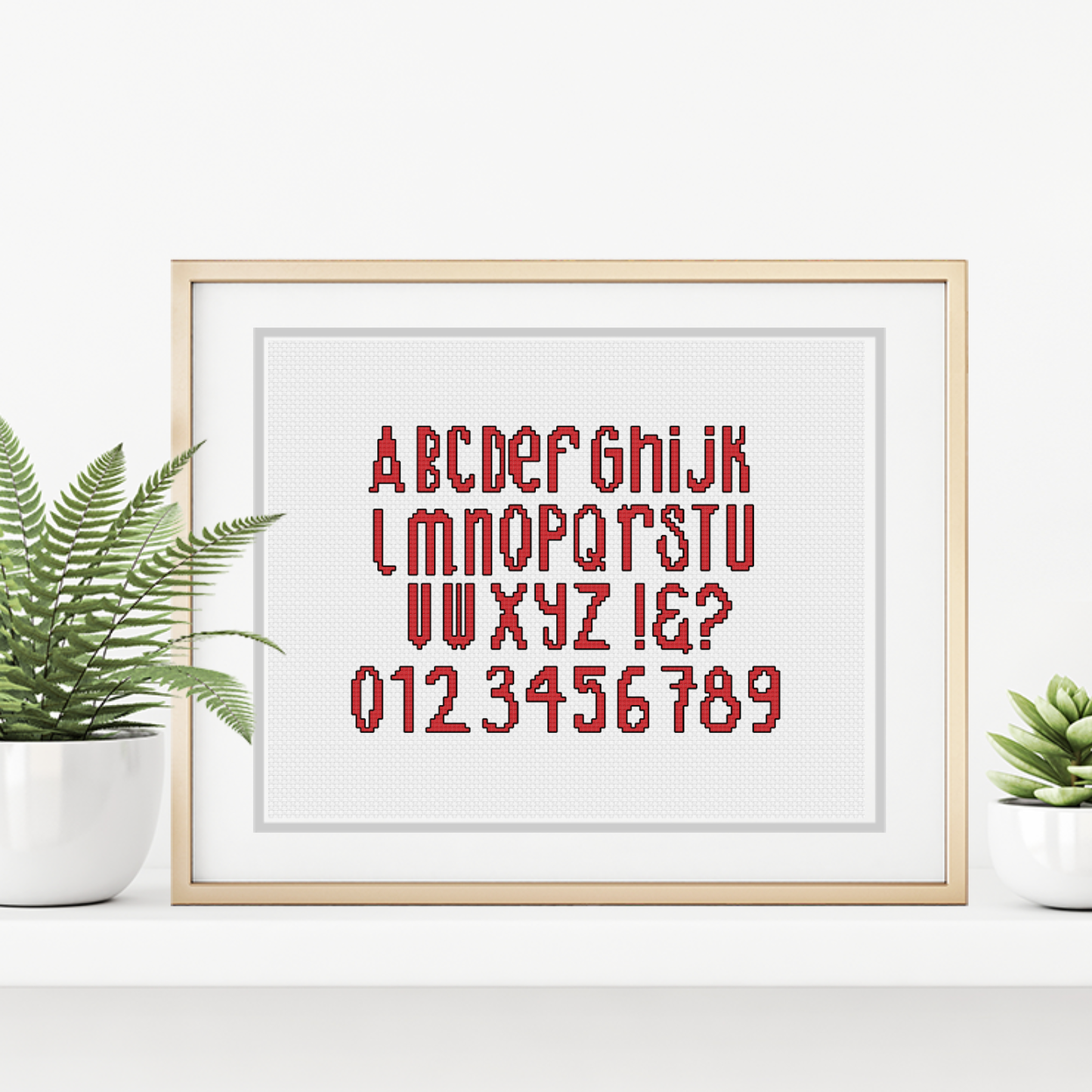
This lovely cross stitch font was the one I used on my Be Creative Blackwork chart (shown on the second photo - although please note it is not included with this font)
Tallest letter is 15 stitches high